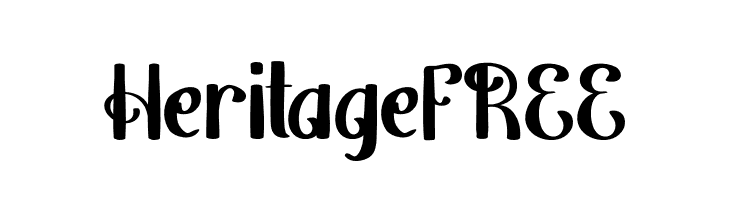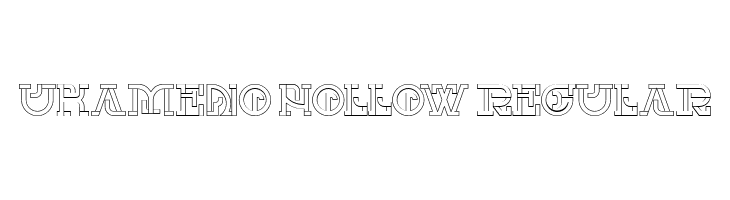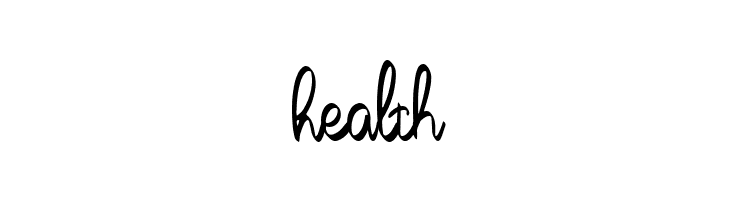
A bold, playful font with whimsical and decorative elements.
A bold, geometric font with a strong, modern aesthetic.
A bold, geometric font with a modern and assertive style.
A playful, handwritten font with tall, narrow letters and a whimsical style.
A playful and elegant cursive font with smooth, flowing letterforms.
A bold, angular font with a dynamic slant and modern aesthetic.
A bold, angular font with a medieval, left-slanted design.
A bold, italic, decorative font with heart motifs and a playful style.
A graceful and flowing script font with elegant cursive characters.
A playful and bold handwritten font with smooth curves and expressive style.